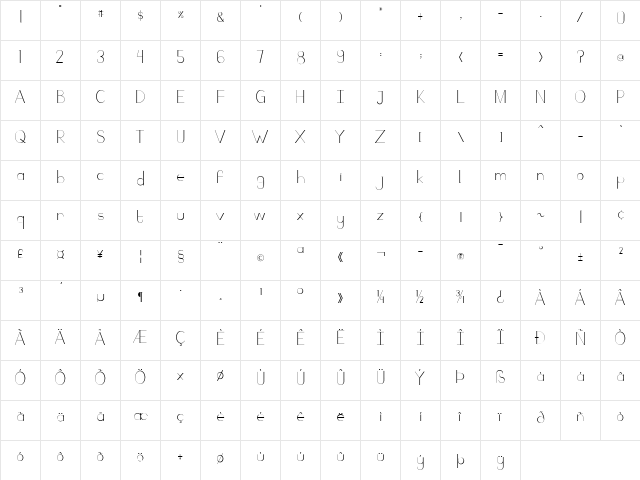
Camaly _regular
Design Context for Camaly Typeface
Camaly takes a measured approach to typography — its balanced proportions and neutral character make it a reliable workhorse for both digital and print work.